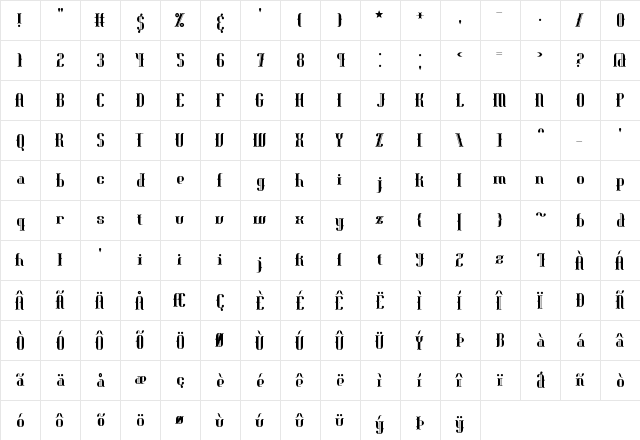
Blackoninaut Redux BRK Normal
Design Context for Blackoninaut Redux BRK Typeface
Blackoninaut Redux BRK is a composed and adaptable typeface that performs quietly and consistently across a wide range of design contexts.